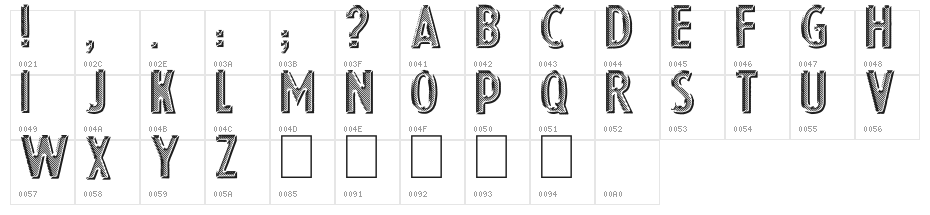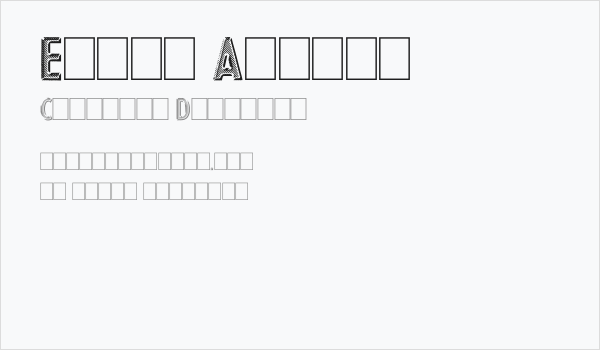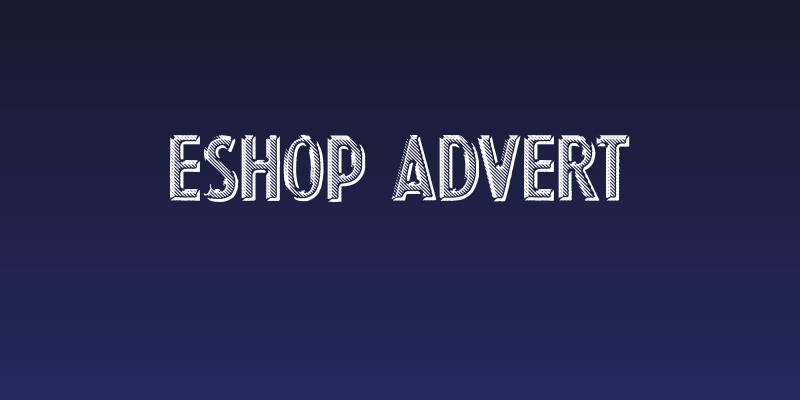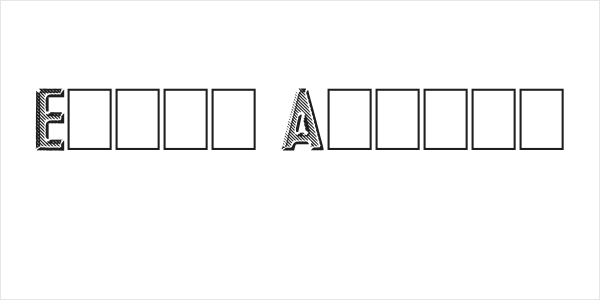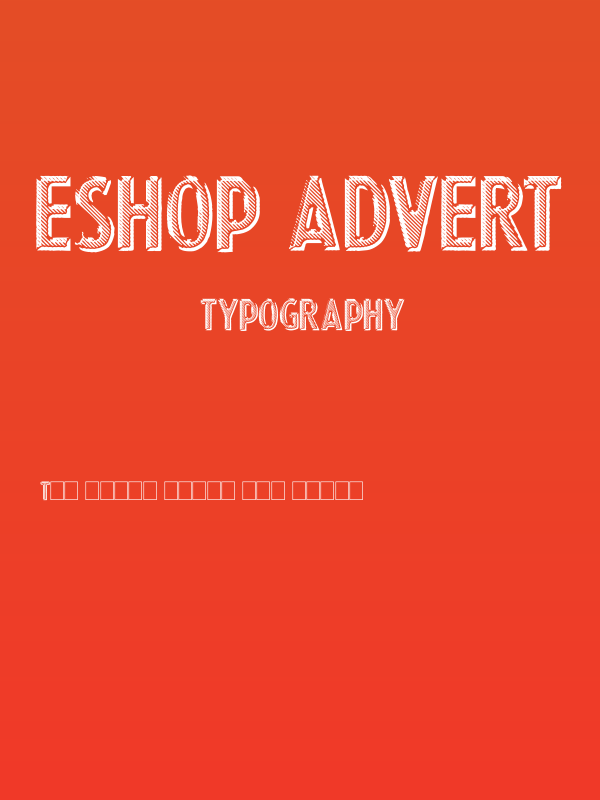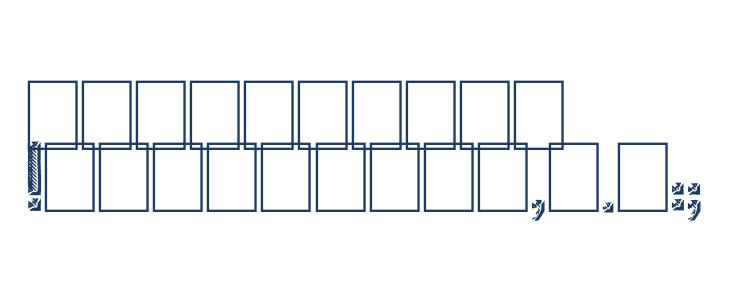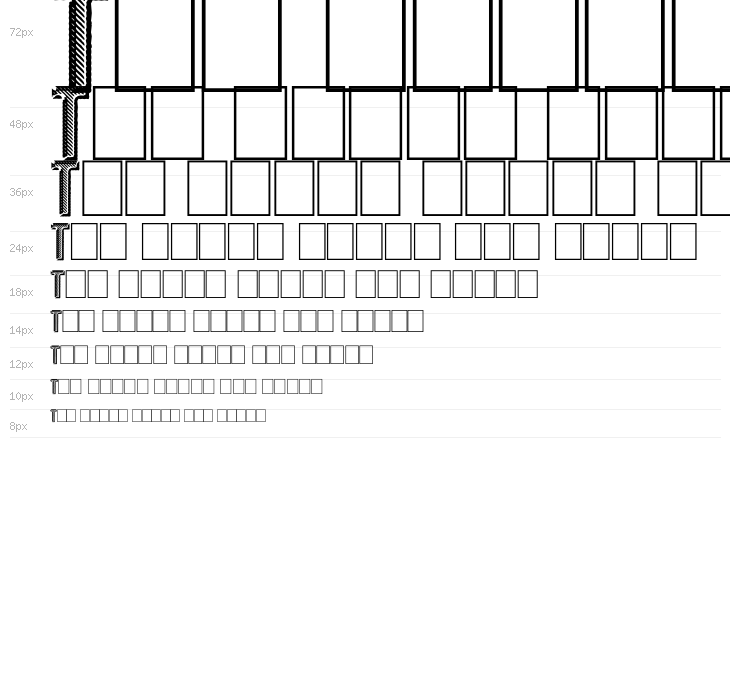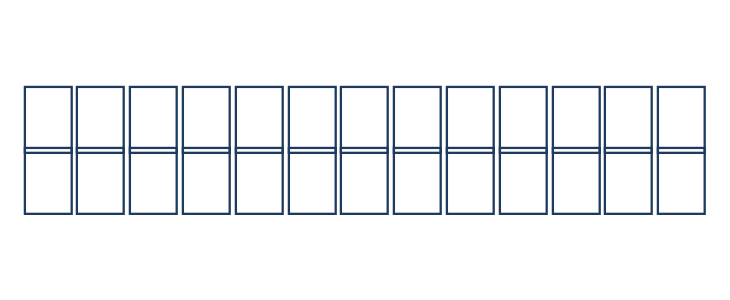
Eshop Advert Font
Eshop Advert Description
This font features a bold, decorative style with a unique hatched pattern filling each character. The uppercase letters are prominent and eye-catching, making them ideal for attention-grabbing headlines or titles. The design incorporates a shadow effect, giving the letters a three-dimensional appearance. The overall aesthetic is dynamic and modern, suitable for projects that require a strong visual impact. The font's distinct style makes it stand out, ensuring that any text using it will be memorable and engaging.
| Proposed Projects | Ideal for posters, advertisements, branding, and any design needing a bold, eye-catching typeface. |